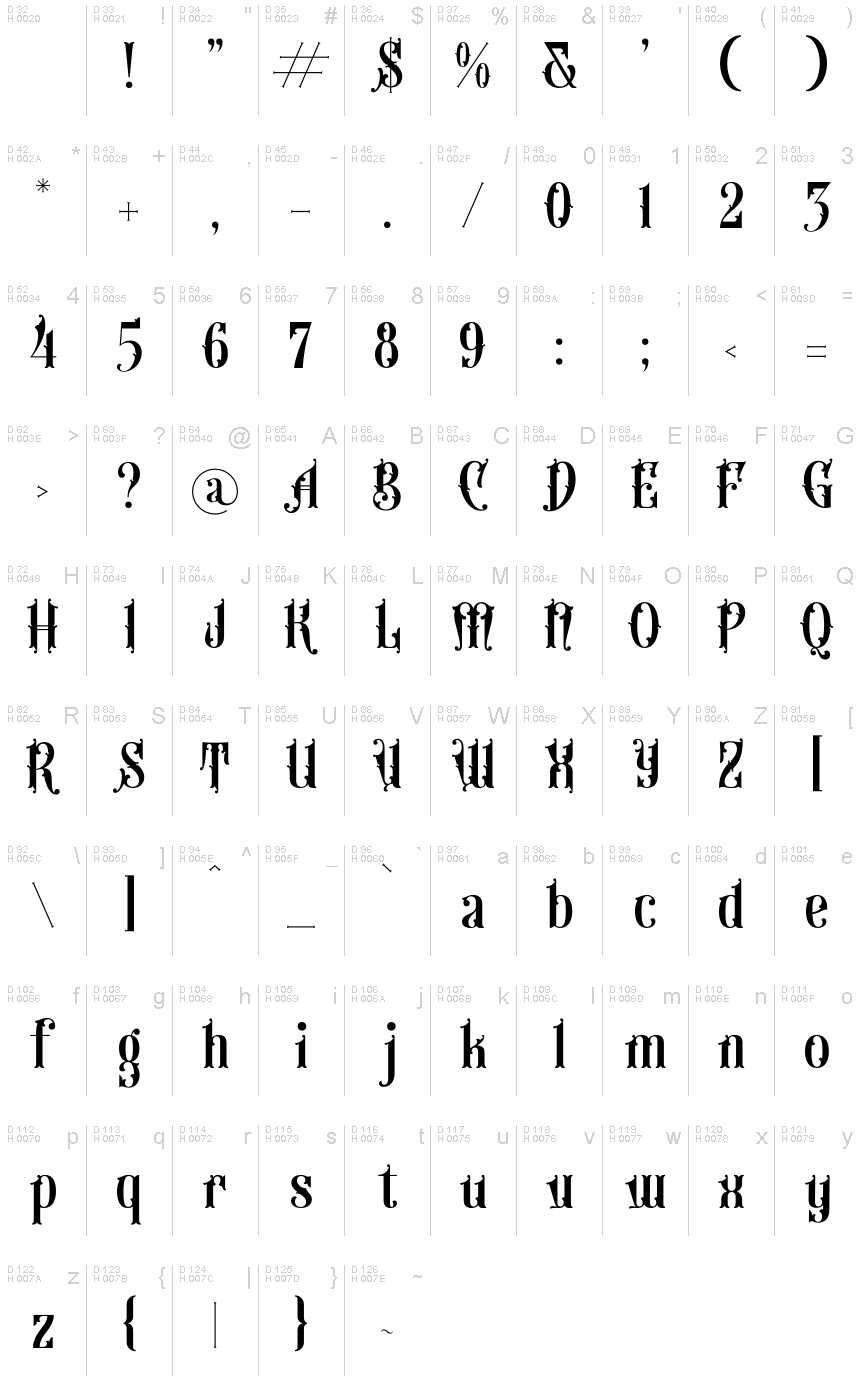
Warlock
Warlock, crafted by Storytype Studio, exudes a bold retro charm that captivates at first glance. Its condensed structure brings an elegant and sophisticated flair to any design project. Each character is meticulously designed with intricate details, evoking nostalgia while remaining distinctly unique. The flowing curves and stylish serifs enhance its visual appeal, making Warlock perfect for designs that require a touch of vintage sophistication.
Ideal for headlines, posters, branding, and other display contexts, Warlock's standout aesthetic ensures that your message is not only read but remembered. Whether you are seeking to create eye-catching promotional materials or bring a classic touch to modern designs, Warlock offers versatility with an unmistakable style.